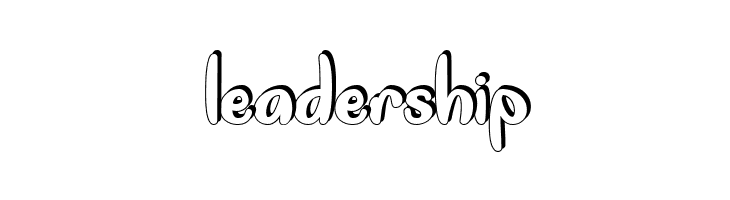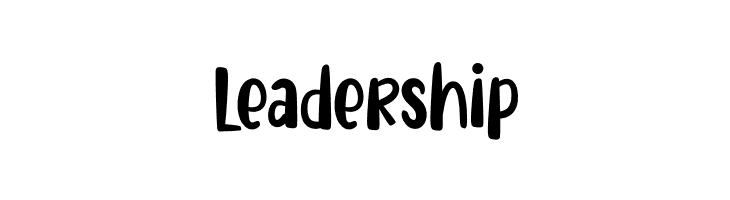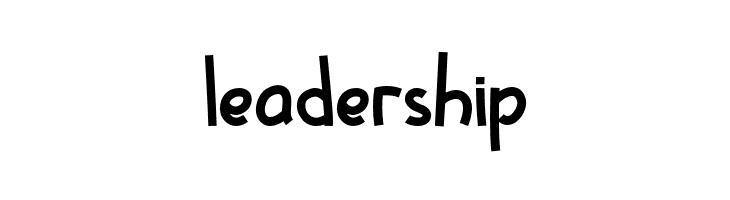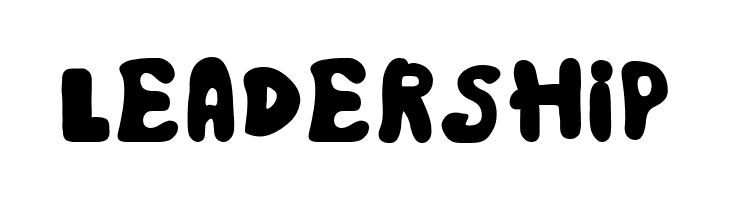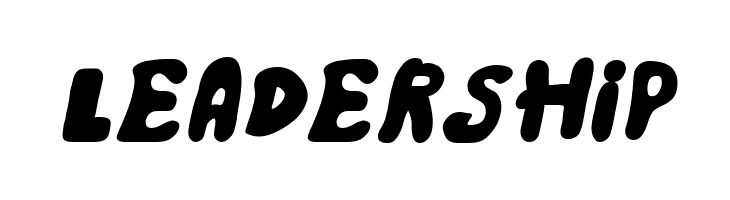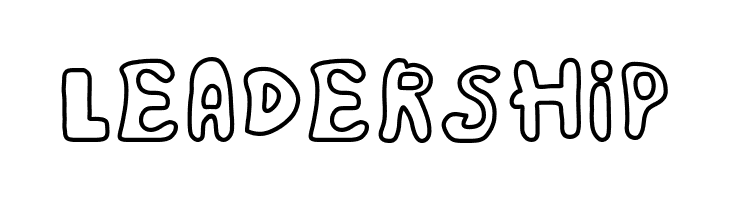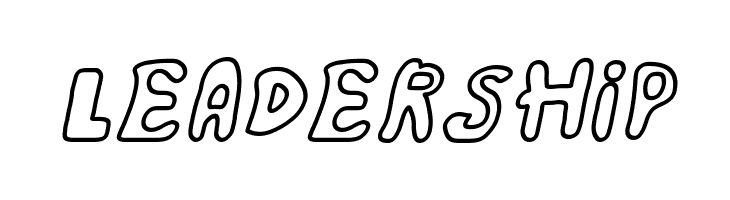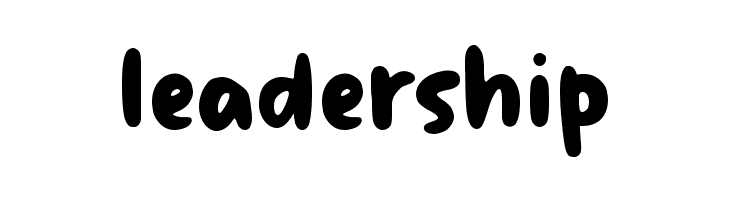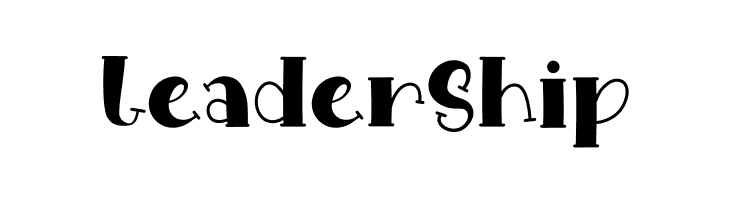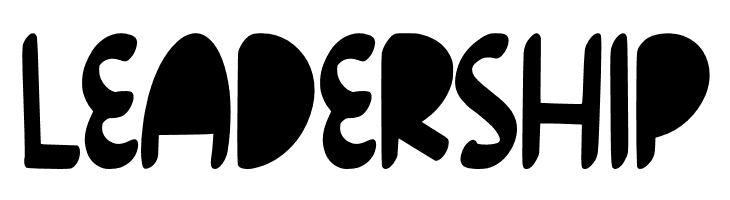
( Fonts by Misti's Fonts )
A playful, outlined font with a bold, bubbly style and three-dimensional effect.
( graphicriver.net/user/joiaco )
A whimsical, hand-drawn font with playful, irregular strokes and dynamic character shapes.
( Fonts by Regulerstudio )
A playful, hand-drawn style font with dynamic strokes and a whimsical feel.
( Fonts by Docallisme HAS )
A playful, rounded font with a dotted outline, perfect for creative projects.
( Fonts by Figuree Studio )
A bold, playful font with rounded, exaggerated shapes for a whimsical appearance.
( Fonts by Toko Laris Djaja )
A playful, hand-drawn font with a whimsical and casual style.
( Fonts by Toko Laris Djaja )
A playful serif font with a hand-drawn, whimsical style.
( Fonts by LetterStock )
A bold, geometric font with a modern and edgy style.
( Fonts by LetterStock )
A bold, geometric font with a modern and dynamic style.
A bold, cartoonish font with thick outlines and playful character design.
( Fonts by Mustofa Nur Sidiq )
A playful, hand-drawn font with rounded, irregular strokes.
( Fonts by Gassstype )
A playful, hand-drawn style font with bold, irregular letterforms.
( Fonts by Gassstype )
A playful, hand-drawn font with bold, irregular strokes and a casual style.
( Fonts by twinletter )
A bold, playful font with rounded edges and a chunky appearance.
( Fonts by BlackFridayFont FMF )
A playful, bubble-like font with a spooky, cartoonish style.
( Fonts by Mr.Soon Design )
A playful, hand-drawn font with rounded, bold characters.
A playful, rounded font with whimsical, bubbly characters.
A playful, italic font with smooth curves and whimsical details.
( Fonts by Onne Hermawan )
A playful, bold font with rounded, bubble-like characters and a whimsical style.
( Fonts by GGBotNet )
A playful, bold outline font with a cartoonish, hand-drawn style.
( Fonts by GGBotNet )
A bold, playful font with rounded edges and a bubbly, retro style.
( Fonts by GGBotNet )
A bold, playful, and italicized font with rounded strokes and close spacing.
( Fonts by GGBotNet )
A bold, outlined, and slightly italic font with a playful, hand-drawn style.
( Fonts by Creavibes Design )
A playful, bold font with rounded, thick strokes and a hand-drawn feel.
( Fonts by Rantau Type )
A playful, bold, and rounded font with a hand-drawn aesthetic.
( Fonts by Yumna Family )
A playful, bold font with rounded, smooth characters and a whimsical style.
( Fonts by Scratchones )
A playful, hand-drawn style font with bold, rounded characters.
( Fonts by Regulerstudio )
A playful, handwritten font with bold, rounded characters.
( Fonts by Rantau Type )
A bold, playful font with rounded edges and a whimsical style.
( Fonts by Hanoded )
A bold, playful font with a hand-drawn, textured appearance and cloud motifs.
( Fonts by BrandSemut )
A playful, whimsical font with exaggerated serifs and a hand-drawn look.
( Fonts by Pandan Wangi )
A bold, playful handwritten font with a casual and friendly style.
( Fonts by Illushvara )
A playful and whimsical font with dynamic strokes and lively characters.
( Fonts by Kurnia Setyadi )
A playful, bold font with rounded, bubbly characters ideal for fun designs.